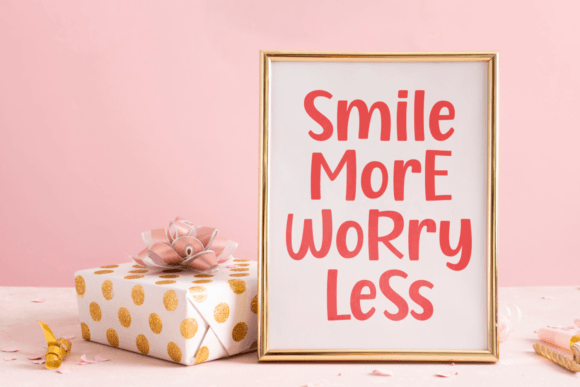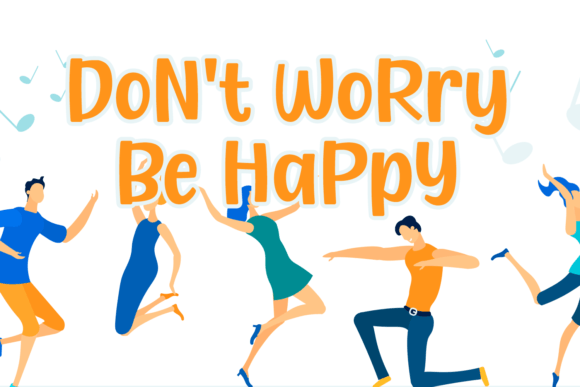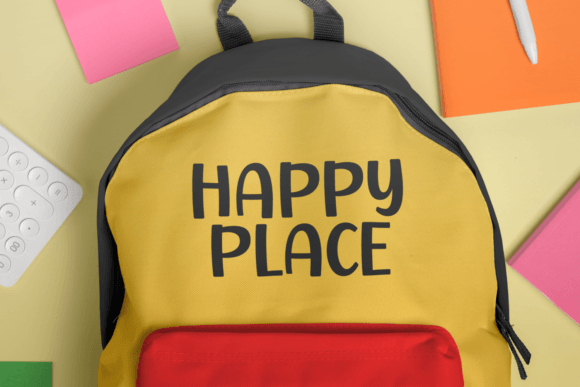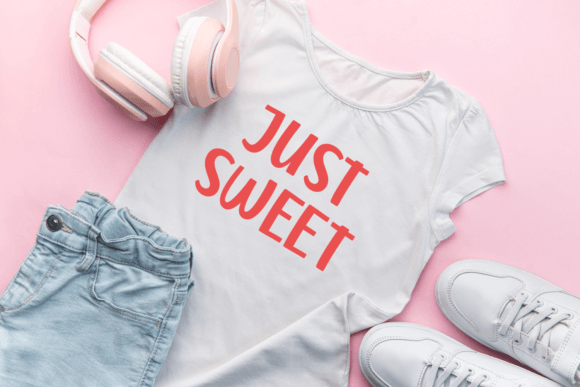
Introduction to Light Story Font
Have you ever stared at a blank canvas, struggling to find the perfect font to bring your creative vision to life? It’s a moment we’ve all been there – the frustration, the excitement, and the anticipation of seeing our ideas take shape. For designers, the right font can be the key to unlocking a project’s full potential.
That’s where the Light Story Font comes in – a beautiful, playful handwritten typeface designed to add a touch of elegance and whimsy to your designs. With its high-quality lines and transparent background, this font is a valuable resource for any creative project, from logos and product packaging to book covers and posters.
Whether you’re looking for a free download or a reliable design partner, the Light Story Font is sure to delight and inspire. In this article, we’ll explore the features and benefits of this lovely font, and show you how it can elevate your designs to new heights.
Key Features of Light Story Font
- Unique, elegant font with a light and airy feel, ideal for use in design projects requiring a subtle touch
- Transparent background option, allowing for seamless integration with any design element
Honest Review: Light Story Font
The font’s versatility is a major selling point, allowing it to be used for a wide range of applications, from website headings to print materials. The transparent background option is also a useful feature, providing designers with the flexibility to customize their designs as needed.
- High-quality design with a clean and elegant aesthetic
- Transparent background option for customization
- Only available in a limited number of font styles
- May not be suitable for extremely complex or detailed designs
Overall, I’m impressed with the Light Story Font. While it may have some limitations, its high-quality design and versatility make it a valuable addition to any designer’s toolkit.
Tips for Getting the Most Out of Light Story Font
Use the Light Story Font on a transparent background to create a clean and minimalist design. Experiment with different font sizes and colors to achieve the desired effect. This font is perfect for creative projects that require a unique and elegant touch.
The Light Story Font is ideal for use in presentations, blog posts, and social media graphics. It’s also suitable for use in branding materials, such as business cards and brochures. With its high-quality design and transparent background, the Light Story Font is a versatile resource for any creative project.